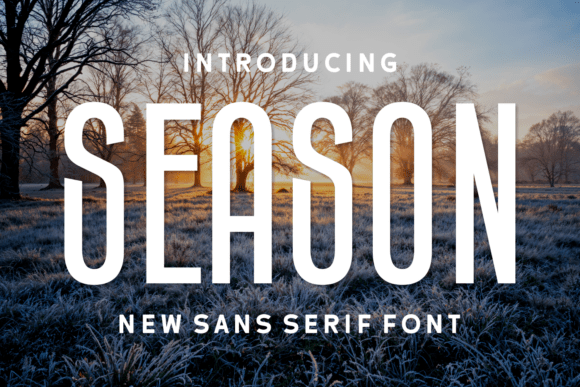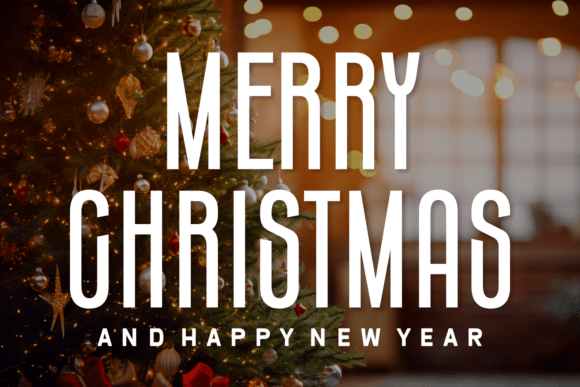
Season Font
Introducing The Season font – a vibrant, whimsical typeface that embodies the vivacity and joy of holiday festivities. Drawing inspiration from the casual joviality of the festive season, this font injects a dose of merry vibrancy into your Christmas-centric creative endeavors. Whether you’re crafting exuberant holiday greeting cards, irresistible party invites, or whimsical decor, The Season font is your go-to tool for channeling the excitement and joy synonymous with Christmas. Immerse your designs in the holiday spirit with the enticing charm of The Season font.